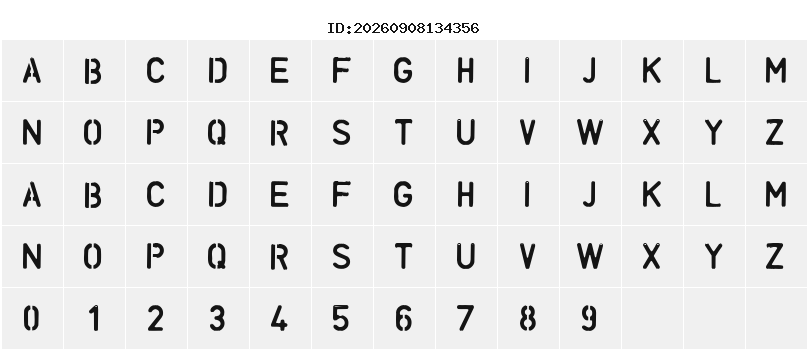
UNCONFORM Preview
• Font Name: UNCONFORM
• Font Style: ROUND
• Font ID: Macromedia Fontographer 4.1.5 UNCONFORM ROUND
• Full Font Name: UNCONFORM ROUND
• Version: Macromedia Fontographer 4.1.5 18/3/01
• PostScript Name: UNCONFORMROUND
• Character Count: 63
About UNCONFORM.ttf
UNCONFORM.ttf is a modern, elegant sans-serif font designed for ultimate readability and visual harmony. Perfect for branding, headlines, web design, and print materials.